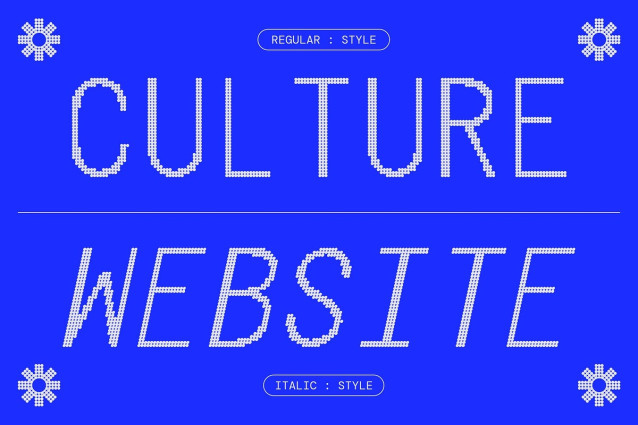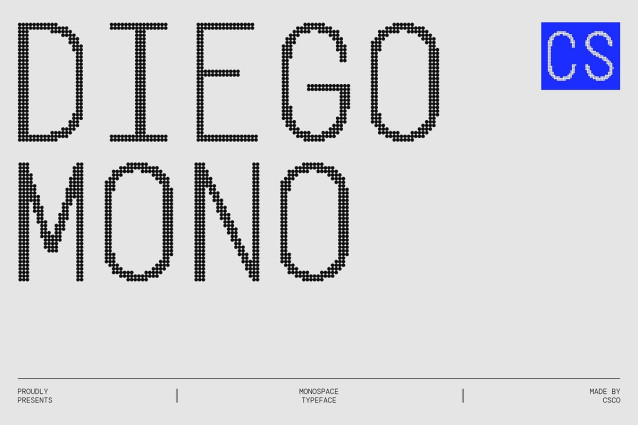
CS Diego Mono Disco Font
CS Diego Mono Disco Font – This is a monospaced serif font that brings structure and rhythm into perfect harmony. Designed with clarity at its core, it maintains consistent spacing across characters, ensuring readability and balance. Its disco-inspired detail adds an artistic layer, giving the font a unique personality that sets it apart from standard monospaced designs.
Narrow and Condensed Elegance With its narrow, thin-condensed style, maximizes space efficiency while retaining a refined presence. The slim proportions make it suitable for designs that need to convey information in compact areas without losing elegance. Whether used for text-heavy layouts or bold typographic statements, its condensed form enhances both readability and style.
Artistic Character with Modern Energy More than just a technical font, this font introduces artistic energy into your projects. The subtle disco details inject vibrancy, transforming the monospaced format into something expressive and engaging. This blend of order and playfulness makes it an excellent choice for designers looking to balance precision with creativity.
Versatility for Diverse Design Applications From branding and editorial layouts to coding visuals and digital interfaces, CS Diego Mono Disco adapts seamlessly. Its structured base provides professional reliability, while its decorative character offers flexibility for creative projects. Use it for posters, logos, packaging, or even stylish tech visuals this font delivers both function and flair.